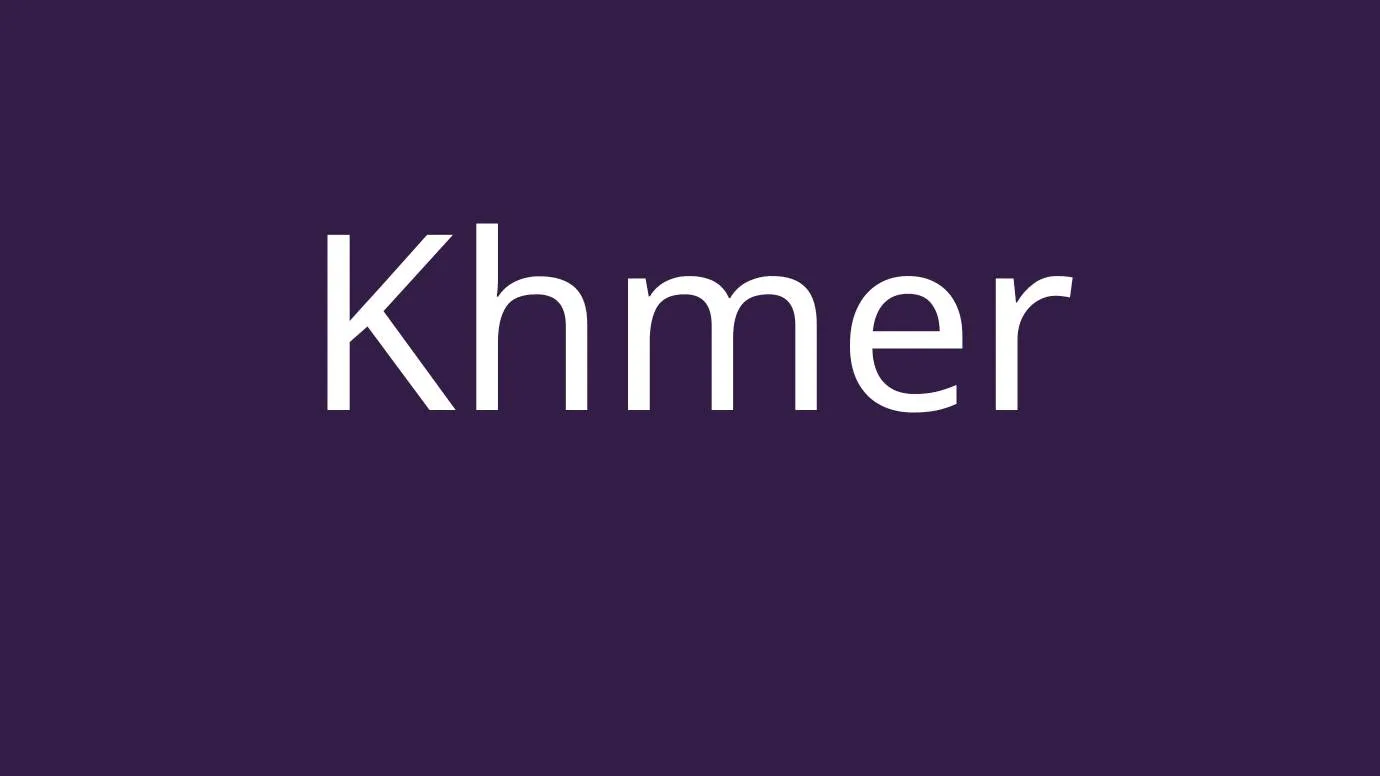
Khmer Font Family is a very unique typeface that was inspired by the national language of Cambodia. It was designed by Tom Torr. This font is available all over the world it is also available in Google Library.
Khmer Font